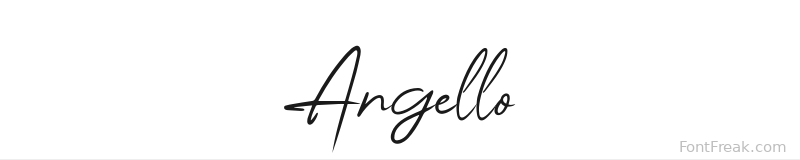
Angello
The Angello font by Syaf Rizal is a stunning handwritten script that exudes elegance and creativity. This font falls within the script category, making it perfect for projects that require a personal touch and a sense of warmth. With its fluid strokes and varying stroke weights, Angello captures the essence of natural handwriting, offering a charming aesthetic that connects with viewers on an emotional level. The contrasting thick and thin lines enhance its visual appeal, while the graceful curves and loops add a decorative flair that makes it stand out.
Angello is particularly well-suited for a variety of creative applications. It shines in wedding invitations, where its romantic style can convey heartfelt sentiments beautifully. It can also be used effectively in branding materials for small businesses, such as artisanal cafes or boutiques, where a personal touch is essential. Additionally, Angello is perfect for greeting cards, social media graphics, and even marketing materials, allowing content creators to add a unique flair to their projects.
What sets Angello apart is its ability to blend sophistication with approachability. Its handwritten style offers authenticity and warmth, making it a versatile choice for both formal and casual designs. Whether you aim to evoke nostalgia or create an inviting atmosphere, Angello is a font that resonates with its audience, making your projects memorable and engaging.